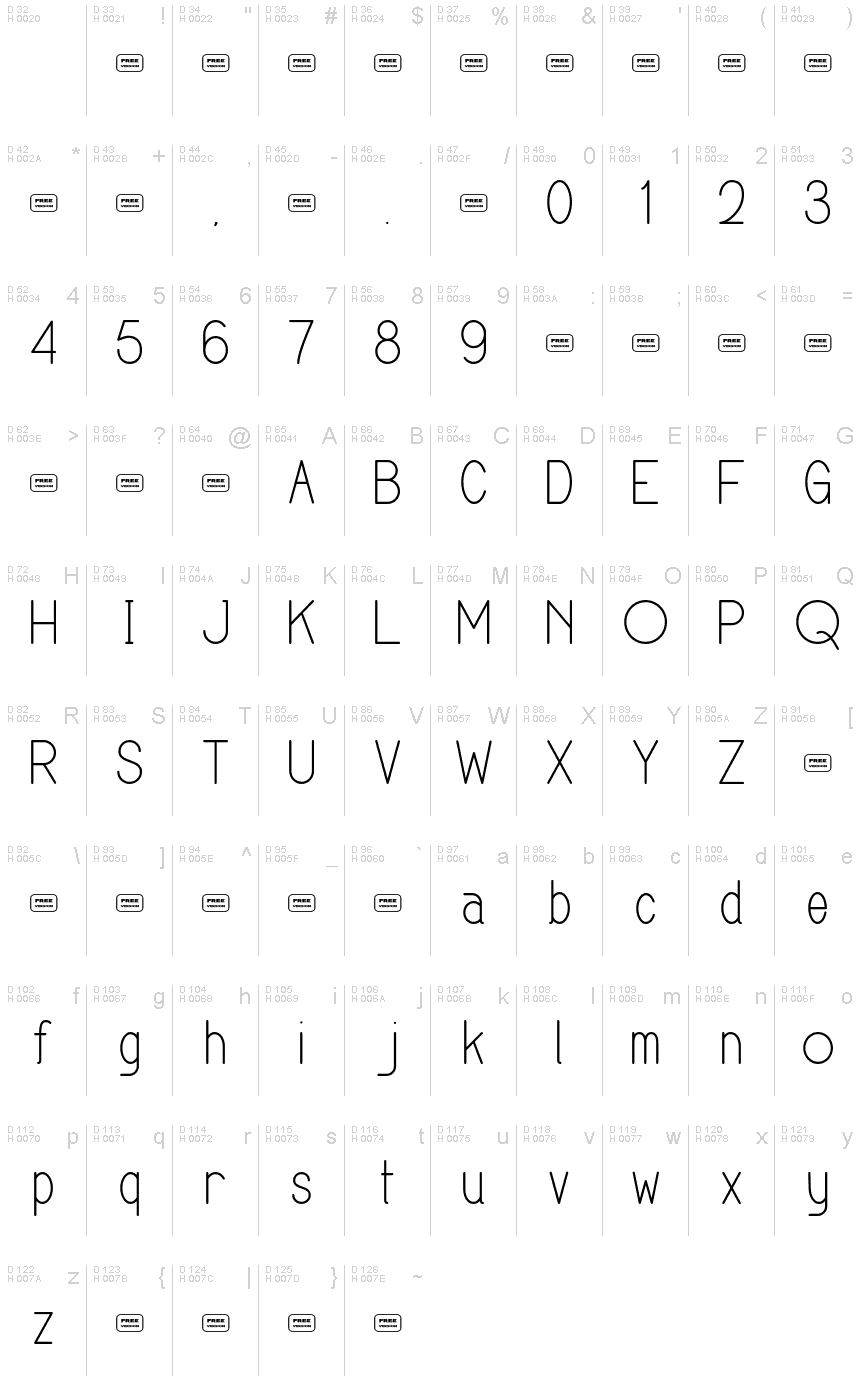
DEVINLAND lovecocky Free Trial
Devinland Lovecocky emerges as a distinctive blend of handwritten charm and script elegance, masterfully crafted by Typefactoryco. This semi-light sans serif font exudes a unique aesthetic that is both approachable and sophisticated, making it an excellent choice for a variety of design projects. Its mixed qualities offer versatility that can enhance everything from casual invitations to professional branding with a personal touch.
The subtle infusion of script elements in Devinland Lovecocky gives it a dynamic edge that sets it apart from conventional sans serifs. Its semi-light weight provides a delicate balance-robust enough to stand out, yet gentle enough to blend seamlessly within creative compositions.
Whether you're looking to add personality to marketing materials or seeking the perfect font for editorial designs, Devinland Lovecocky promises to deliver an exceptional visual experience. With its potential to elevate any creation, this font stands as an indispensable addition to your library, ready to make its mark on your next project with style and grace.